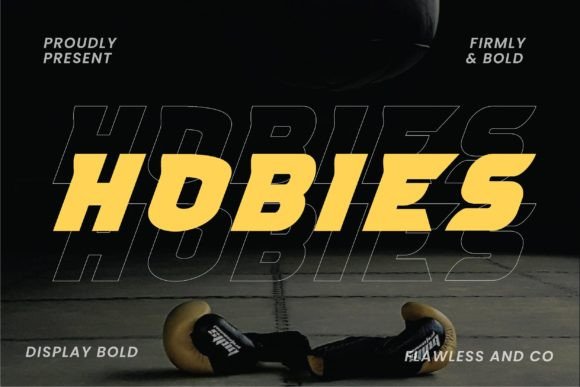
Prepare to be enthralled by Hobies, an awe-inspiring display font that fuses boldness and individuality. Its strong and commanding letterforms emanate confidence and authority, transforming your designs into captivating masterpieces. Hobies' outline regular variant lends a distinctive touch, setting your creations apart from the mundane.
Unleash your creativity with Hobies, the perfect font for headlines that demand attention, posters that ignite passion, and logos that leave a lasting impression. Its firm and commanding presence adds a touch of sophistication to any design, making it the ultimate choice for those seeking a powerful typographic element.
Immerse yourself in the world of Hobies and discover a font that ignites inspiration. Its striking letterforms and captivating details transform ordinary designs into extraordinary works of art. Stand out from the crowd and make a statement with Hobies, the font that pushes boundaries and captivates audiences. Dare to be different and let your designs shine with the brilliance of Hobies.